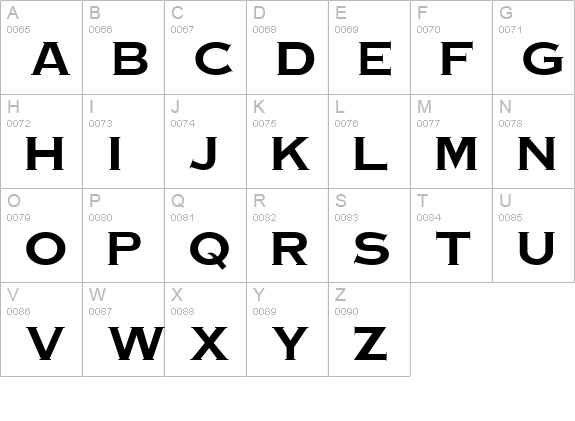
Copperplate Bold is a strong, high-contrast variant in the Copperplate typeface family \xE2\x80\x94 well suited to headlines, attention-grabbing titles, and strong calls-to-action.
Copperplate Bold is a timeless and versatile font that exudes elegance and sophistication. With its bold and commanding presence, this font is perfect for making a bold statement in your designs. The clean lines and classic design of Copperplate Bold make it a popular choice for a wide range of projects, from branding to editorial design. What sets Copperplate Bold apart is its ability to convey a sense of strength and confidence while maintaining a sense of refinement and style. The font's bold strokes and distinctive serifs give it a unique personality that is both modern and classic. Whether you are working on a logo, poster, or any other design project, Copperplate Bold is sure to make a lasting impression. And the best part? This stunning font is available for free download at FontsMarket.com, making it accessible to designers of all levels. Give your designs a touch of sophistication and elegance with Copperplate Bold today!